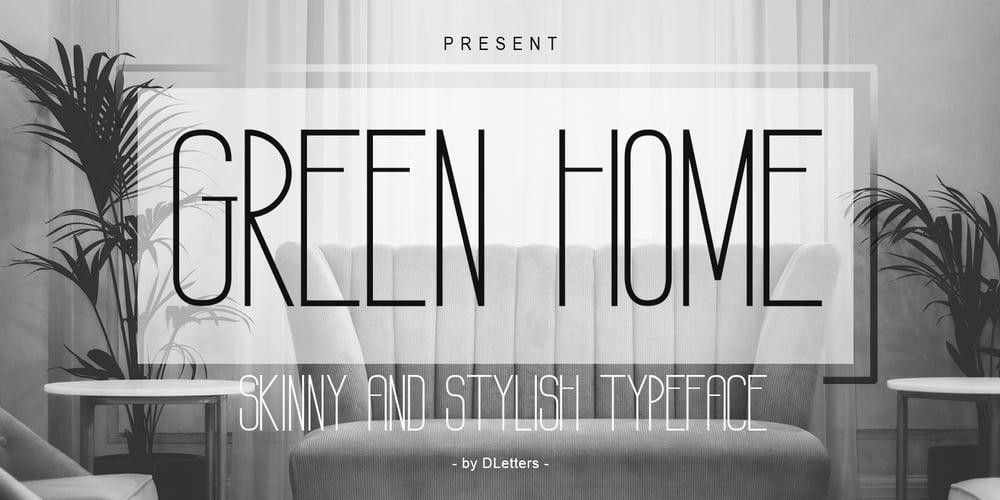
Green Home Font Family was designed by Diosi Julianto and published by DLetters Studio. Green Home contains 1 styles and family package options. Hello, This GREEN HOME Sans Serif font, has a Skinny, Stylish, and elegant Shape is perfect for your design ideas with the theme of Home Decorating, Home Idea, and is also very suitable as a complementary font for any of your photography and creative works.What’s Included :– Web Fonts– Ligature– Works on Win, Mac– Simple installations– Accessible in Adobe Illustrator, Adobe Photoshop, Adobe InDesign, even work on Microsoft Word.– PUA Encoded Characters– Fully accessible without additional design software.Hope you enjoy it with GREEN HOME font! Contact me if you have questions